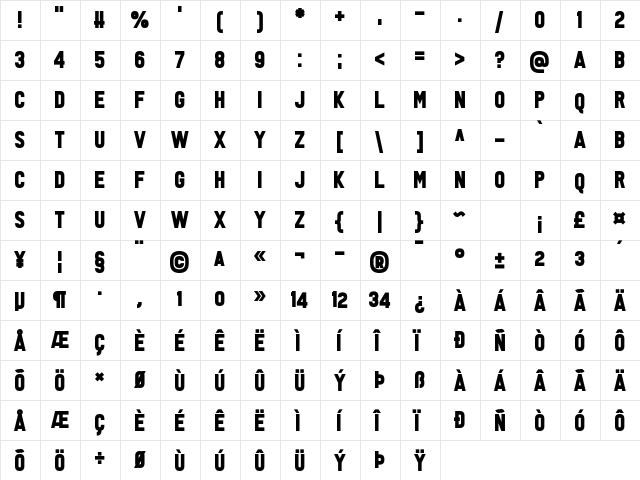
Tabloid Scuzzball Regular
Design Context for Tabloid Scuzzball Typeface
Tabloid Scuzzball takes a measured approach to typography — its balanced proportions and neutral character make it a reliable workhorse for both digital and print work.